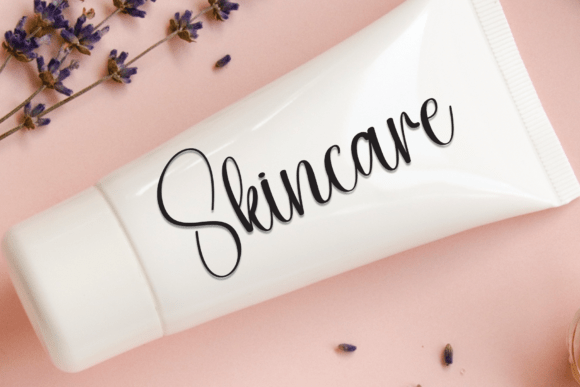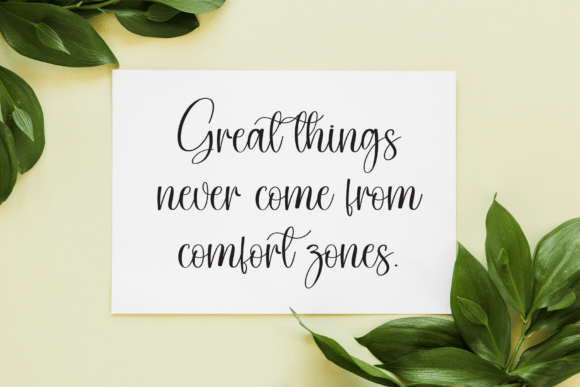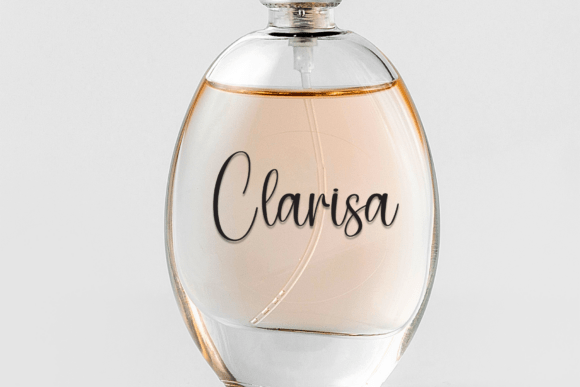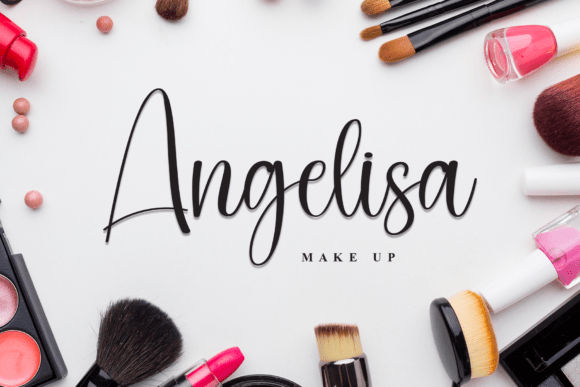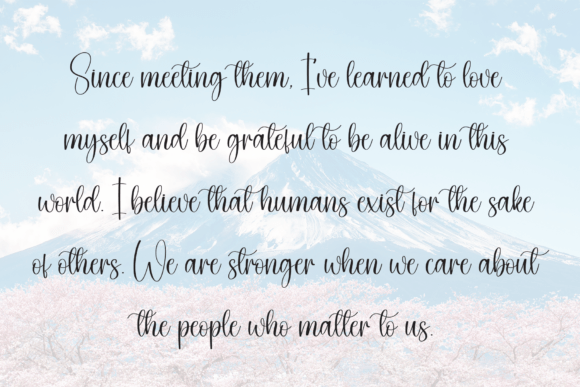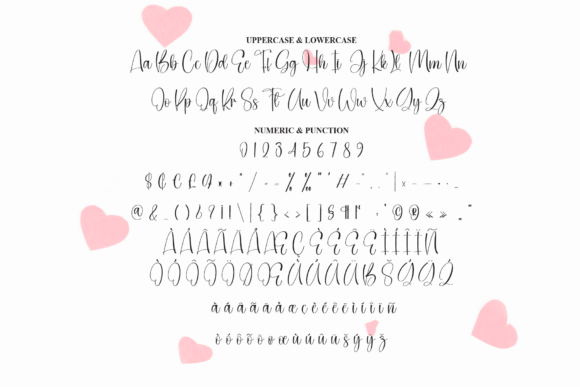
Introducing Hearting Font: The Perfect Expression of Modern Romance
In the world of typography, few fonts capture the essence of romance and affection as beautifully as Hearting Font. This enchanting handwritten script font is infused with modern romance, making it an ideal choice for designers and crafters looking to add a touch of elegance and charm to their projects. Characterized by smooth, flowing connections and elegant tails that often transform into delicate hearts, Hearting Font is the perfect expression of love and affection.
What Makes Hearting Font So Special?
Hearting Font is a unique and captivating typeface that boasts several distinctive features. Its smooth, flowing connections give it a sense of fluidity and movement, while its elegant tails add a touch of sophistication and refinement. But what truly sets Hearting Font apart is its delicate heart motifs, which often emerge from the tails of the letters, adding a whimsical and romantic touch to the font.
These heart motifs are not just a subtle accent, but an integral part of the font’s design. They add a playful and affectionate feel to the font, making it perfect for projects that require a touch of romance and whimsy. Whether you’re designing wedding stationery, Valentine’s Day cards, or romantic social media posts, Hearting Font is sure to capture the hearts of your audience.
Ideal Uses for Hearting Font
Hearting Font is a versatile typeface that can be used in a variety of projects, including:
- Wedding Stationery: Hearting Font is a perfect choice for wedding invitations, save-the-date cards, and other wedding-related stationery. Its elegant and romantic feel makes it an ideal fit for the occasion.
- Valentine’s Day Designs: Whether you’re designing Valentine’s Day cards, posters, or social media posts, Hearting Font is sure to add a touch of romance and affection to your projects.
- Romantic Social Media Posts: Hearting Font is perfect for creating romantic social media posts, including Instagram captions, Facebook posts, and Twitter updates.
- Personalized Gifts: Hearting Font can be used to create personalized gifts, such as customized mugs, tote bags, and jewelry.
- Branding: Hearting Font is also suitable for branding projects that aim for a sweet, graceful, and heartfelt aesthetic. It can be used to create logos, business cards, and other marketing materials.
Why Designers and Crafters Love Hearting Font
Hearting Font has quickly become a favorite among designers and crafters due to its unique and captivating design. Here are a few reasons why:
- Elegant and Refined: Hearting Font has an elegant and refined feel that makes it perfect for projects that require a touch of sophistication.
- Romantic and Whimsical: The font’s delicate heart motifs add a playful and romantic touch to projects, making it ideal for Valentine’s Day and wedding-related designs.
- Easy to Read: Despite its elegant and refined feel, Hearting Font is easy to read, making it perfect for body text and captions.
- Versatile: Hearting Font can be used in a variety of projects, from digital designs to print materials.
Hearting Font is a beautiful and captivating handwritten script font that is infused with modern romance. Its smooth, flowing connections, elegant tails, and delicate heart motifs make it a perfect expression of affection and charm. Whether you’re a designer or crafter looking for a unique and elegant font for your projects, Hearting Font is an excellent choice. With its versatility, elegance, and romantic feel, Hearting Font is sure to capture the hearts of your audience and add a touch of sweetness to your designs.